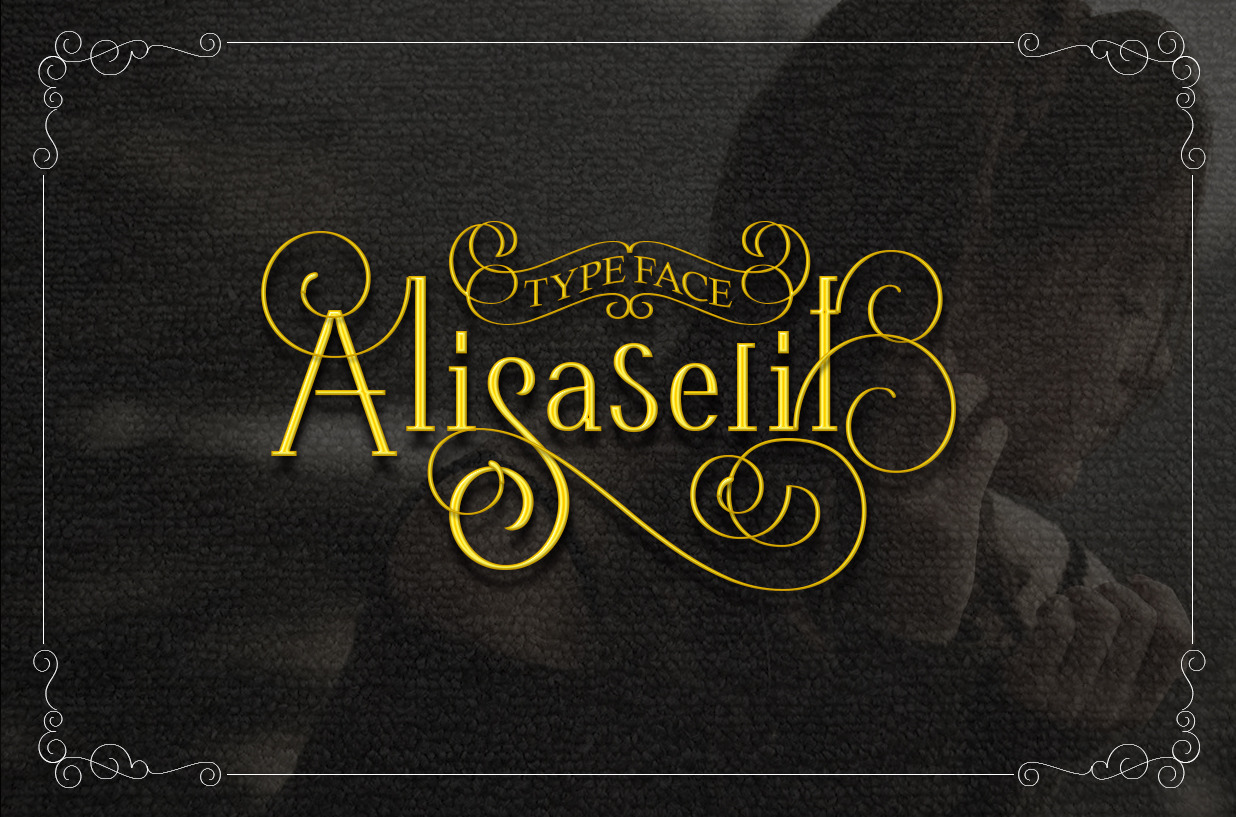
Alisaserif TypeFace
Agile is an Combination of tradition and Modernity font. Suitable for digital lettering, prints, logo, poster, t-shirt, packaging and applicable for some type of graphic design. More than 200+ glyphs. hope you like it, thank you.